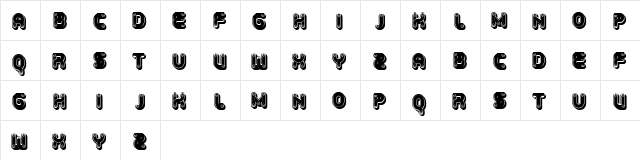
Beans Regular
Design Context for Beans Typeface
Beans is a composed and adaptable typeface that performs quietly and consistently across a wide range of design contexts.